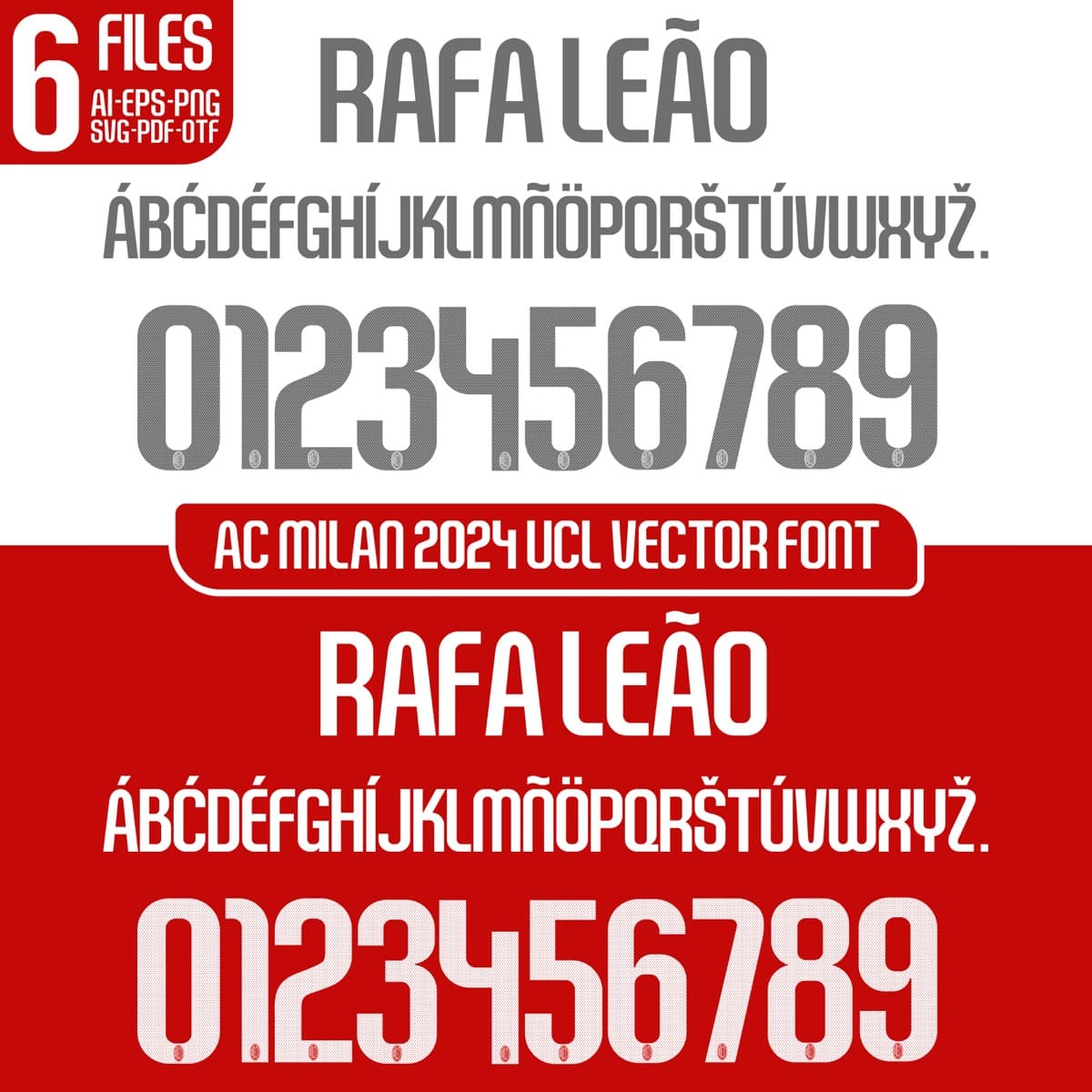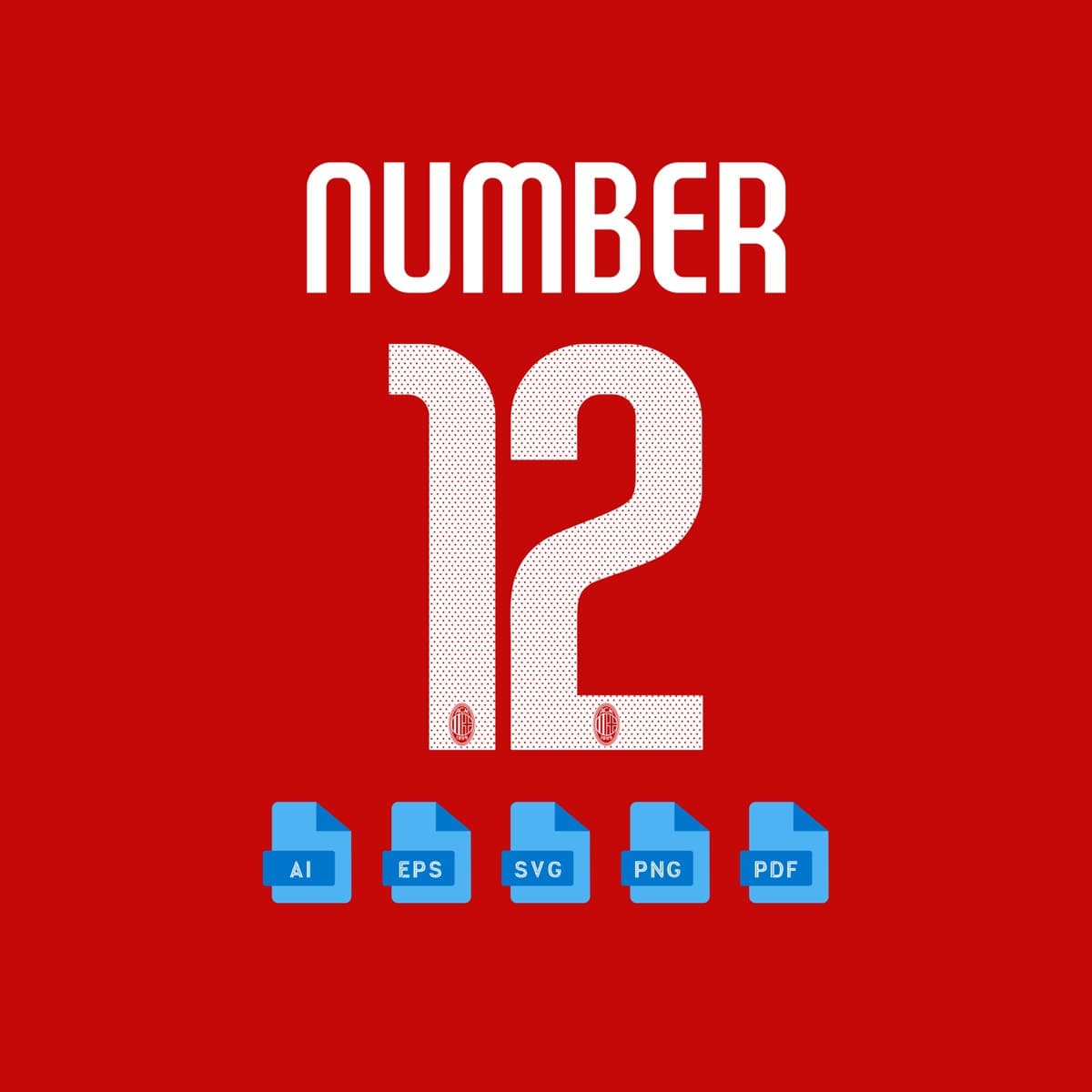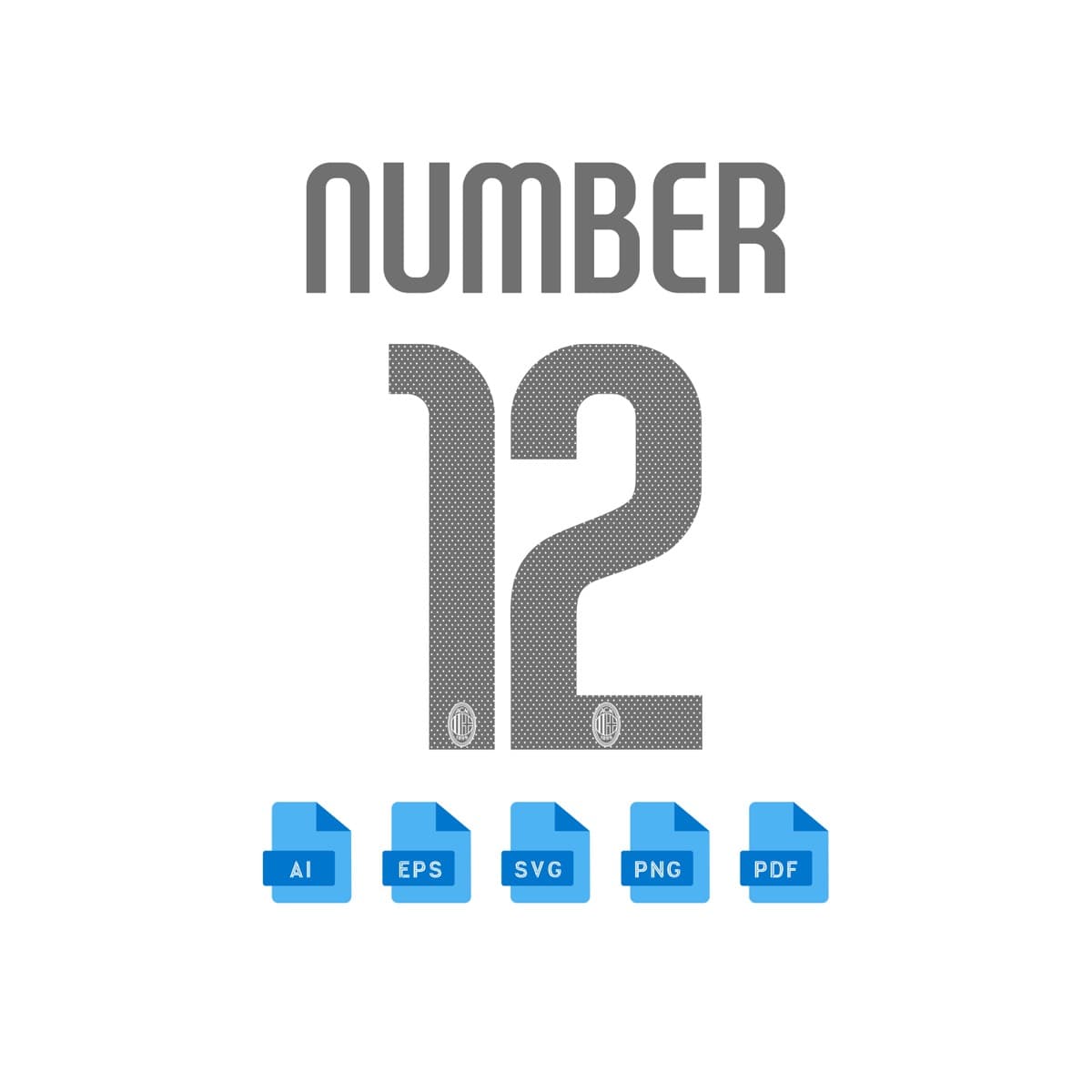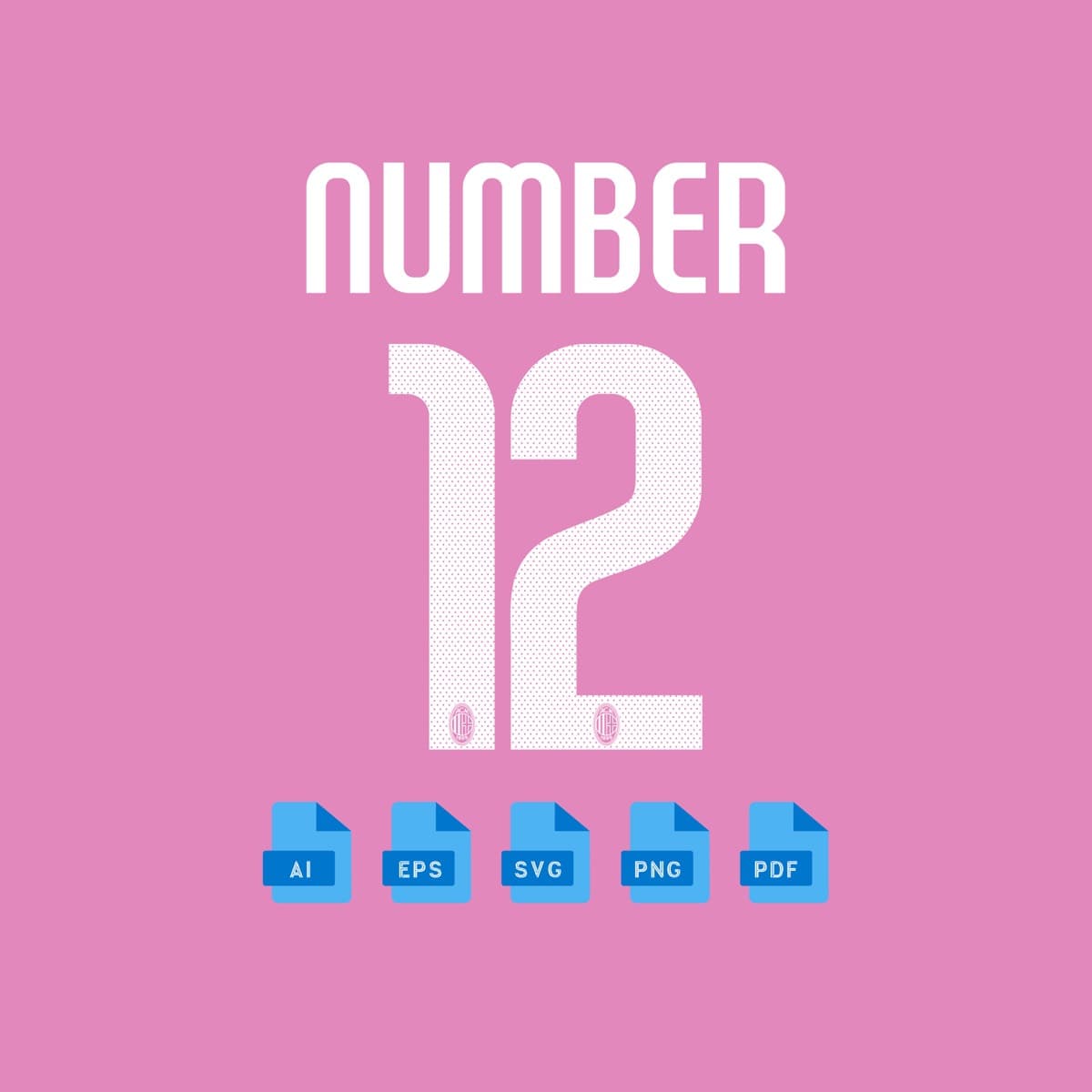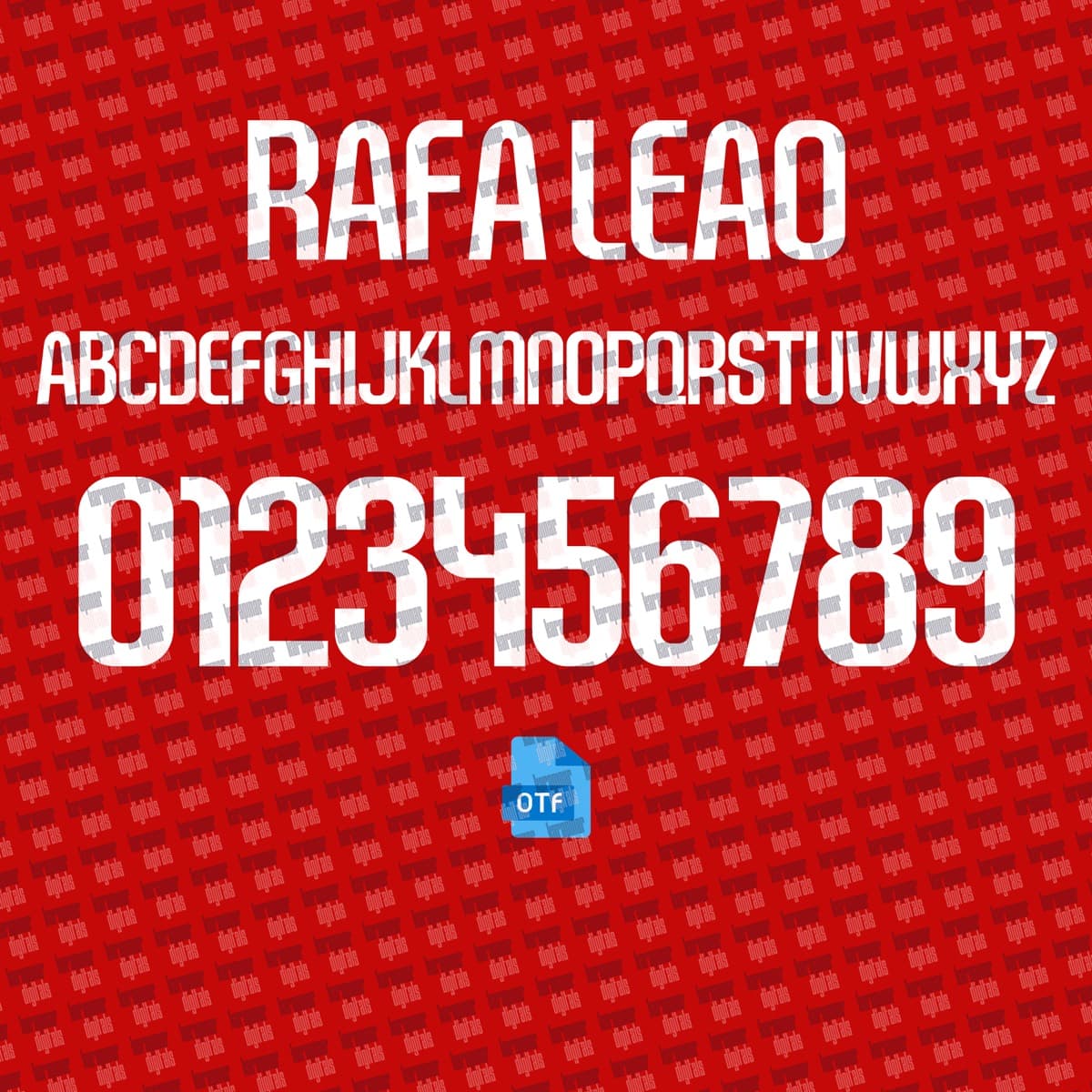
AC Milan UCL 2024 football jersey font for AC Milan — vector letters and numbers preview
AC Milan UCL 2024
AC Milan · 2024
AC Milan UCL 2024
A set inspired by the AC Milan 2024 jersey typography, with a name and number system redrawn for print and screen. Original curves, consistent weight and a complete 0–9 numeral family.
Jersey sets focus on uppercase + numerals; the glyph map shows exactly what this set includes.